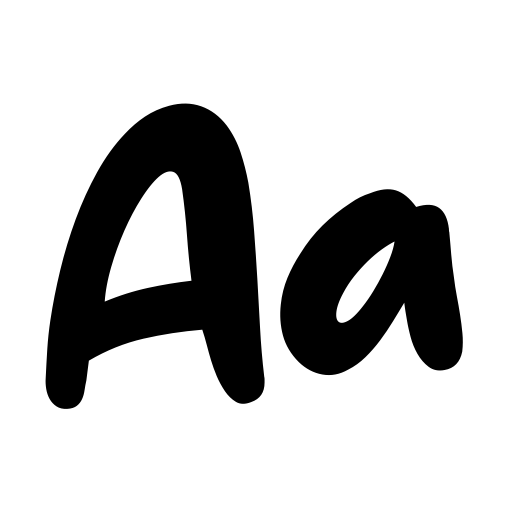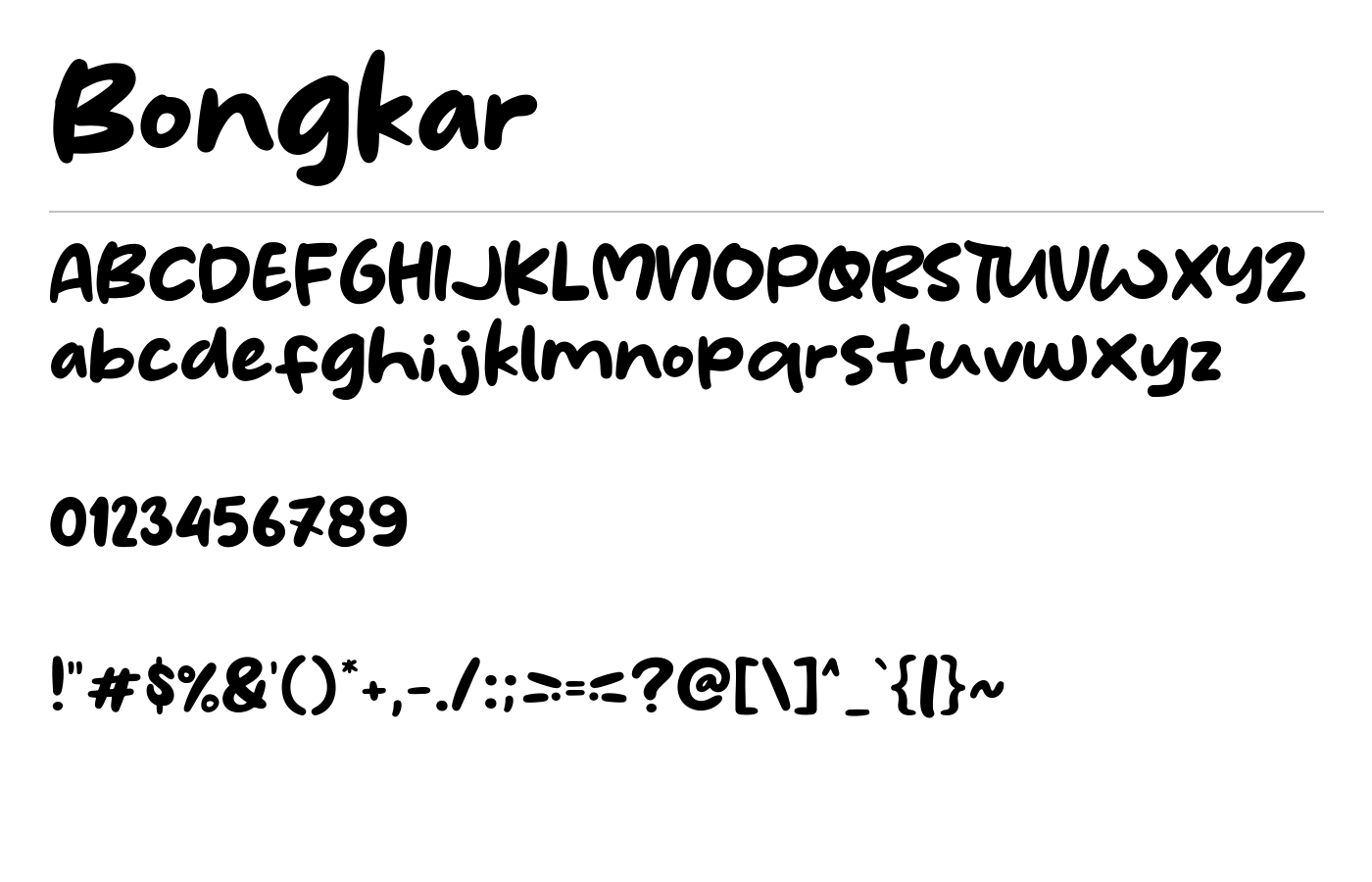
Bongkar is a playful, bold handwritten font with a casual and friendly feel, featuring rounded, thick strokes and a lively, irregular design that adds a personal touch. Its informal style suits creative projects, children’s materials, branding, and headlines that require an approachable and energetic vibe, standing out with its warmth and personality.
Bongkar Font
About Bongkar Font
| Font family | Bongkar Font |